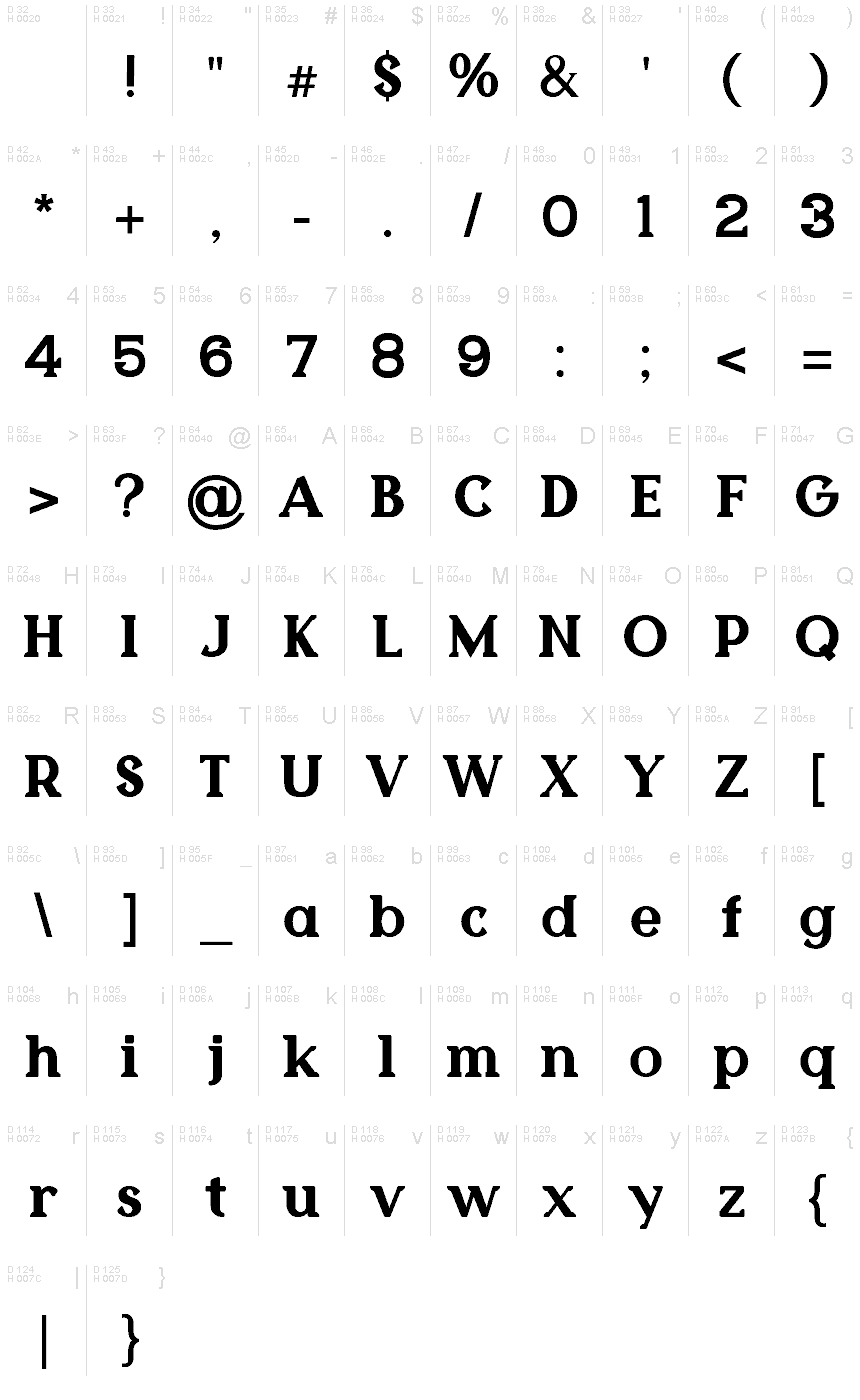
Qualiyun
Qualiyun font by UI Creative is a bold serif font that combines classic elegance with a modern touch. With its strong presence and refined feel, this typeface seamlessly blends tradition and innovation for a sophisticated look. Its design features ensure that it stands out in any setting while maintaining readability and charm.
Use this free serif font to design labels, body texts, headlines, badges, apparel prints or digital items like social media posts or profile covers. Websites are another field of use along with web banners and advertisements. Explore it in book covers (both printed and e-books) as well as magazines or posters.